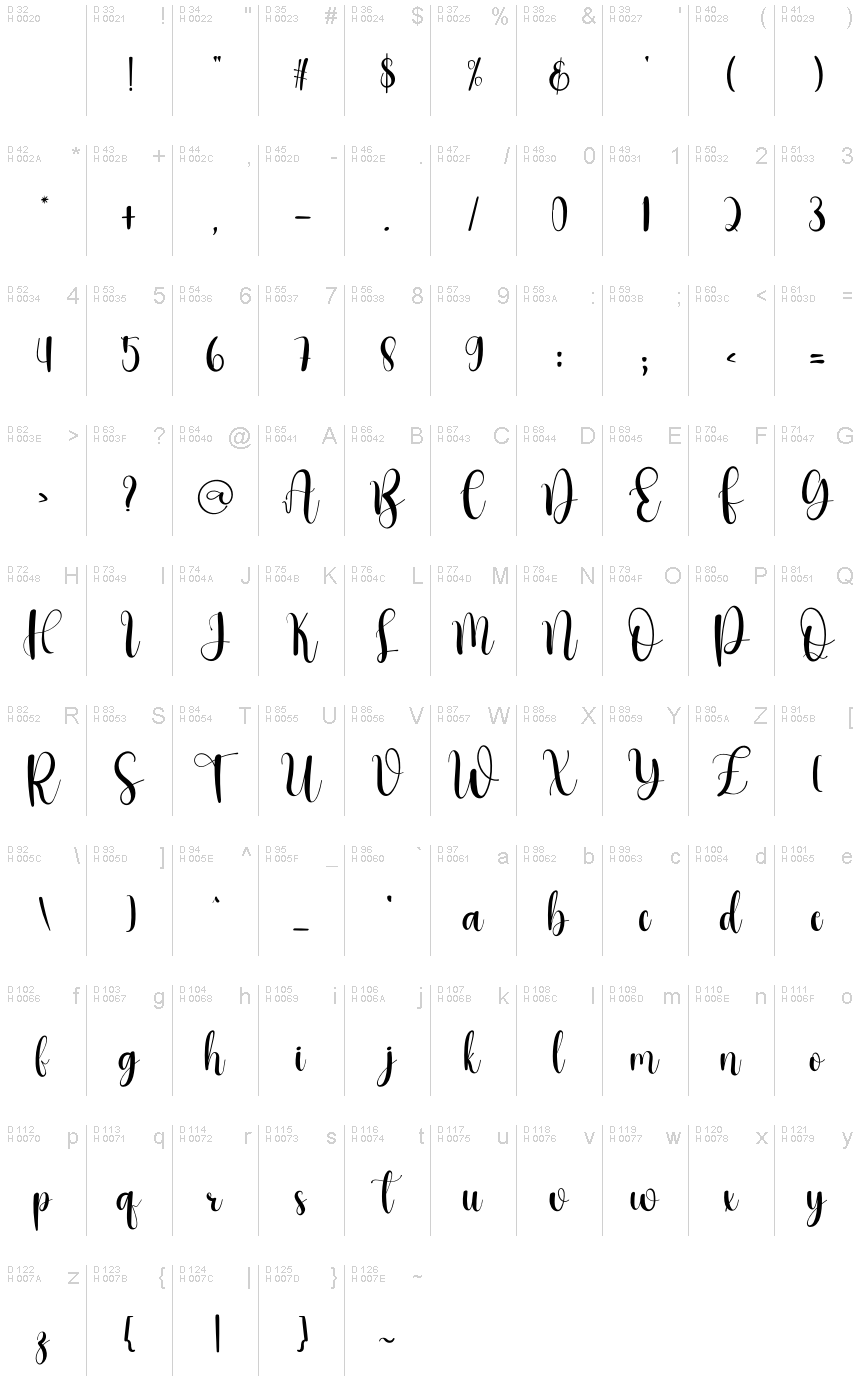
Better Holidays
Introducing "Better Holidays" - a captivating handwritten font crafted by the talented designers at PiPi Creative. This delightful typeface exudes a charming, whimsical essence, capturing the spirit of festive celebrations and joyful moments. The fluid, organic strokes and playful ligatures lend a sense of effortless elegance, making it a delightful choice for a wide range of design projects.
The versatility of "Better Holidays" allows it to seamlessly integrate into diverse design contexts, from greeting cards and invitations to branding and packaging. Its distinctive character adds a touch of personality and character to any project, making it an ideal selection for those seeking to infuse their designs with a sense of warmth and authenticity.